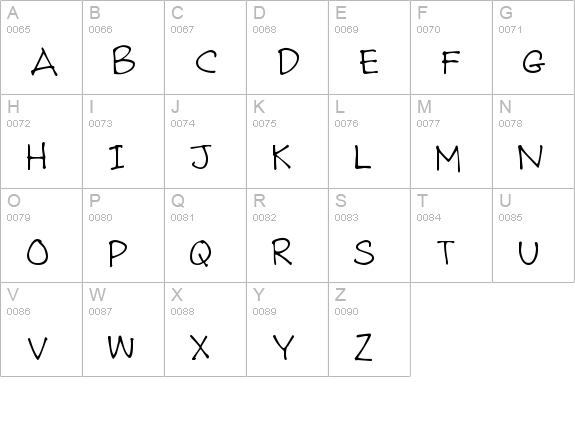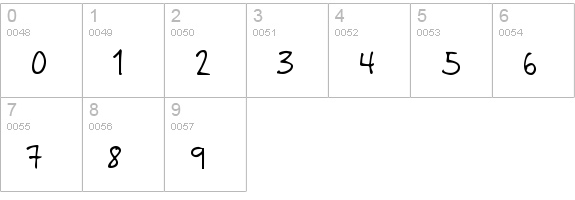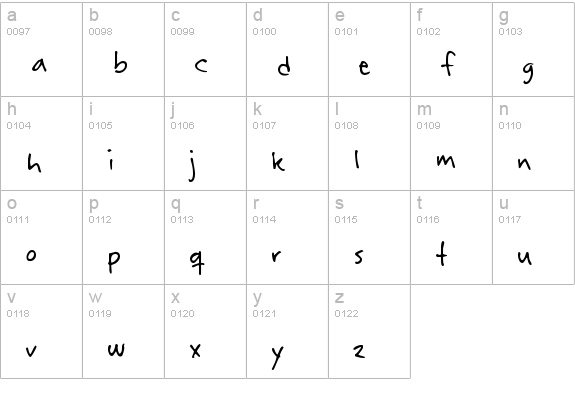
Rabiohead Font Details
Introducing Rabiohead, a captivating and versatile font that seamlessly combines the elegance of traditional typography with a modern twist. This font is here to make a bold statement in your designs, whether it's for branding, editorial projects, or advertising campaigns. Rabiohead's unique and eye-catching letterforms are meticulously crafted, exuding a sense of sophistication and creativity. With its clean lines and balanced proportions, this font effortlessly captures attention and leaves a lasting impression on any audience. But what truly sets Rabiohead apart is its remarkable accessibility - it is available to you free of charge! Yes, you read that right. This extraordinary font is freely available to download at FontsMarket.com, allowing you to elevate your designs without breaking the bank. Whether you're a professional designer or an aspiring creative, Rabiohead offers you the opportunity to explore your artistic vision without any limitations. Its extensive character set and multiple stylistic alternates provide endless possibilities, enabling you to truly customize and personalize your projects. With Rabiohead, you have the power to create typography that resonates with your audience, evokes emotion, and conveys your message with clarity and impact. So why wait? Unleash your creativity and download Rabiohead today, exclusively at FontsMarket.com.